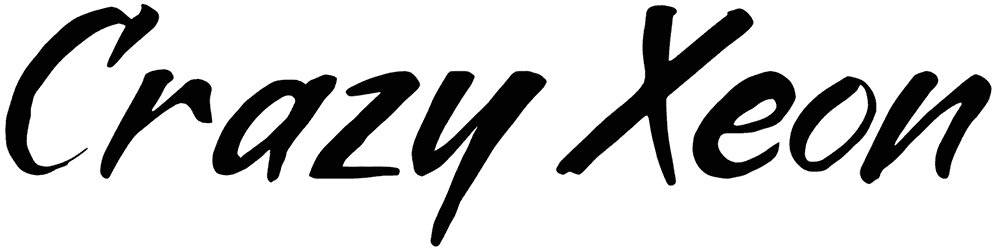
Crazy Xeon Font
While standing out alongside thousands of high-quality graphic content is getting more difficult every day, you can easily attract the attention of your audience with the help of a script font such as Crazy Xeon.
This brush font comes with tilted and elongated characters, which can add a sense of personalization, drama, majesty, and friendliness to a wide range of artwork, including product labels, logos, branding, and packaging.